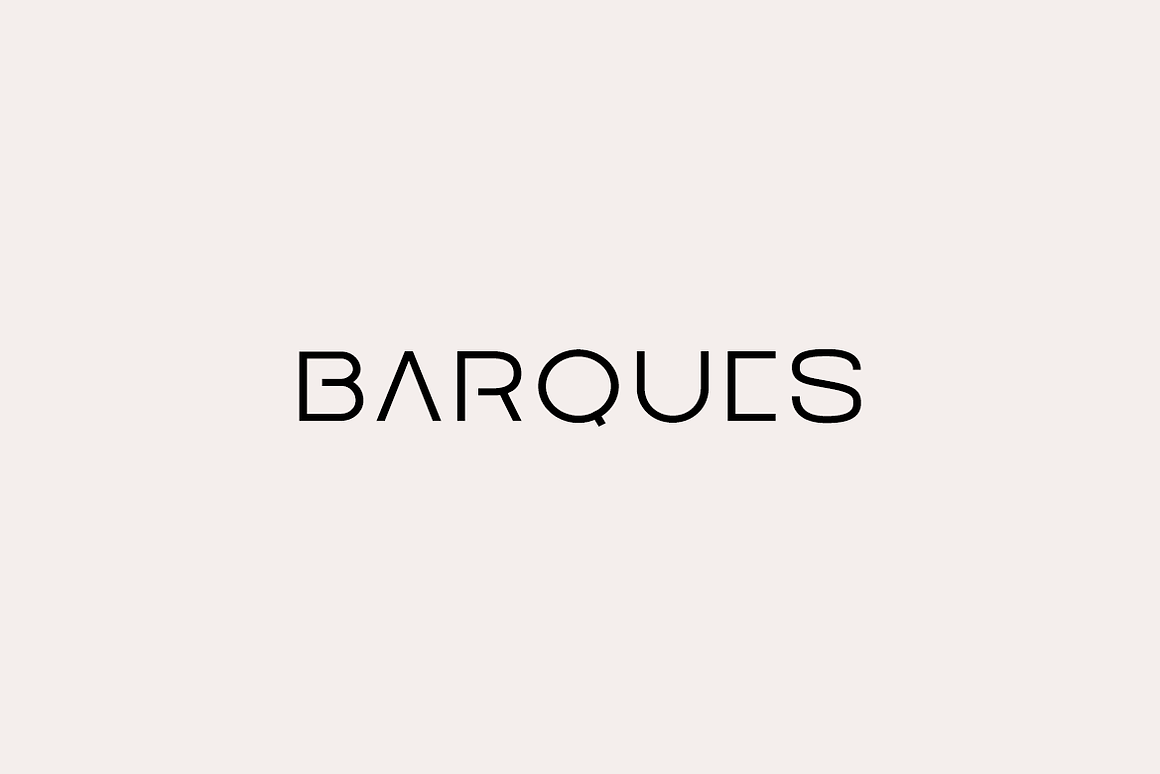
BARQUES - Display / Logo Typeface
BARQUES Display Logo Typeface is perfect for maritime shipping company branding, luxury yacht manufacturer logos, nautical equipment packaging, sailing club signage, marine architecture firm presentations, coastal resort materials, boat dealership advertising, harbor authority documentation, naval heritage museum graphics, and exclusive waterfront dining establishments. This distinguished typeface excels in applications where maritime authority, nautical heritage, and seafaring excellence are fundamental brand characteristics.
What makes BARQUES Display Logo Typeface exciting is its masterful capture of maritime elegance through letterforms that evoke the graceful lines of classic sailing vessels and the timeless craftsmanship of traditional boat building. The font features flowing character construction with subtle nautical details and refined proportions that immediately convey seaworthy reliability and oceanic sophistication. Its dignified presence makes it perfect for brands that celebrate the romance of the sea while maintaining the professional credibility essential for maritime industries and luxury boating culture.
The BARQUES Display Logo Typeface family typically includes Regular and Bold weights, often accompanied by condensed variations that accommodate space-efficient marine documentation and vessel identification requirements. Many versions include alternate characters with enhanced nautical styling, decorative elements inspired by ship hardware and maritime symbols, and special characters related to navigation and sailing terminology. Some collections feature weathered variations and authentic aging effects that enhance the maritime heritage aesthetic for traditional boating applications.
Whether you're developing brand identities for maritime companies, creating materials for luxury yacht services, or designing content that celebrates nautical heritage and seafaring traditions, BARQUES Display Logo Typeface Free Download provides the authentic maritime character that resonates with boating enthusiasts and maritime professionals who appreciate quality craftsmanship and oceanic excellence. Its authoritative presence makes it ideal for businesses operating in luxury marine markets where tradition and innovation combine to create exceptional seafaring experiences. The font's ability to convey both nautical expertise and sophisticated elegance makes it particularly valuable for yacht manufacturers, marine services, and waterfront establishments seeking to attract discerning clients who value maritime heritage, quality craftsmanship, and the timeless allure of life on the water.